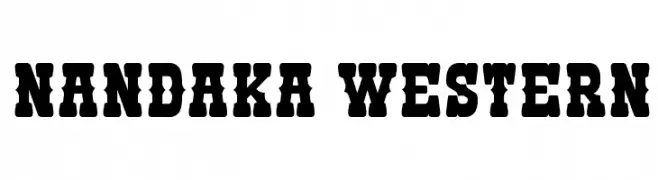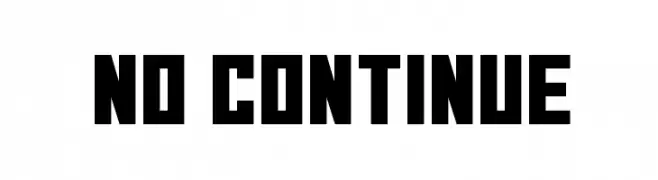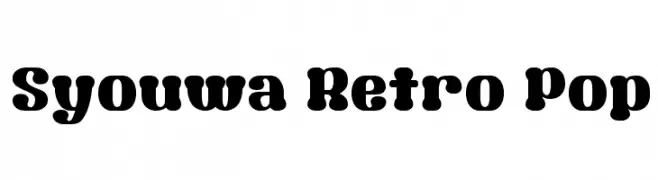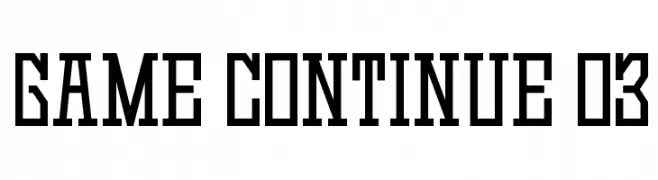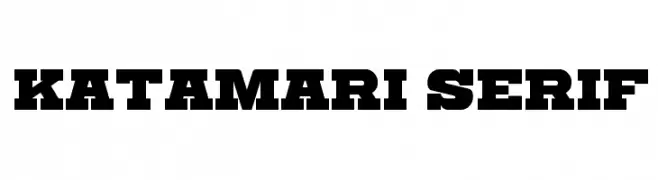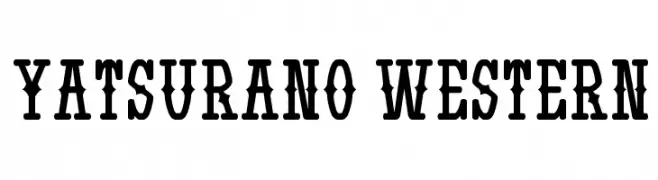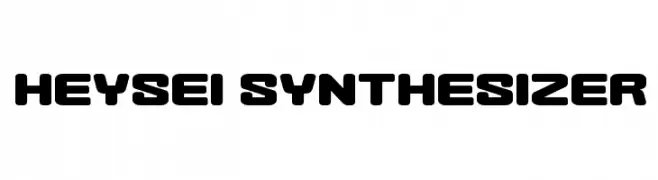
A bold, vintage-inspired serif font with strong, blocky characters and a touch of elegance.
A bold, Western-style font with strong serifs and a vintage appeal.
A bold, geometric font with strong, angular lines and a modern look.
A bold, rounded font with a playful, retro style.
A bold, retro font with a playful, bubbly design.
A bold, geometric font with sharp angles and a modern, industrial feel.
A bold, impactful serif font with strong, block-like serifs and a modern twist.
A bold, futuristic font with rounded edges and a geometric structure.